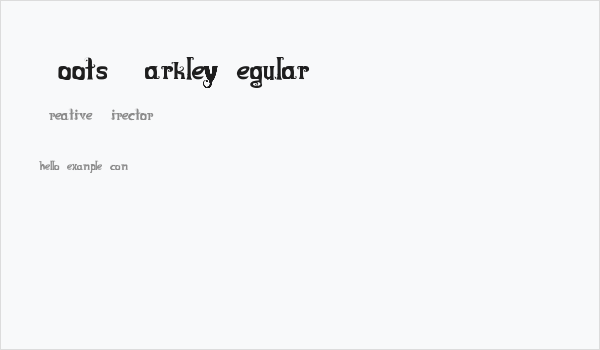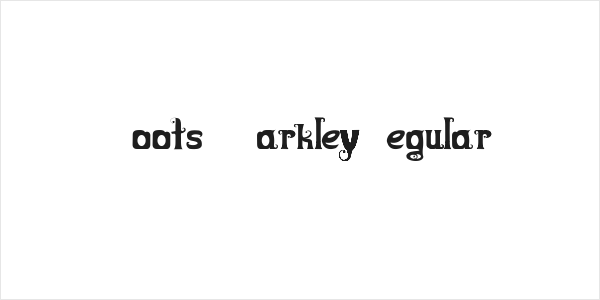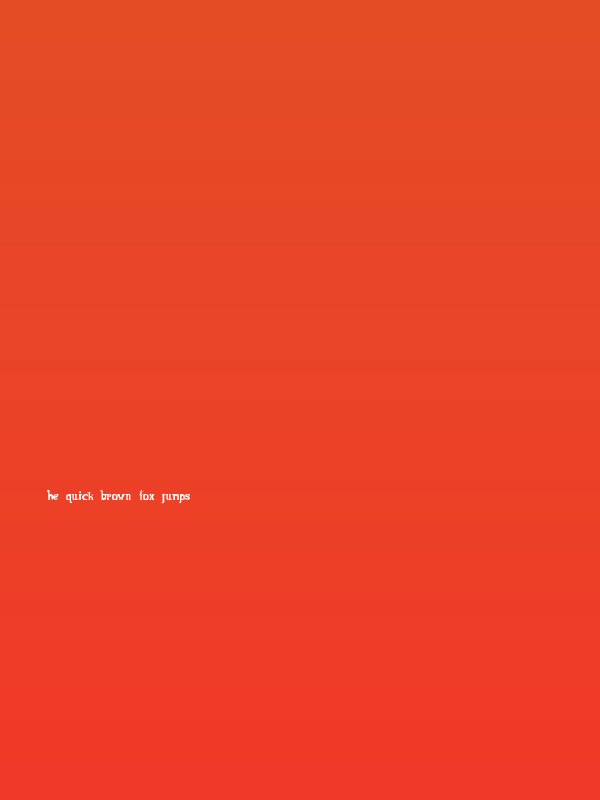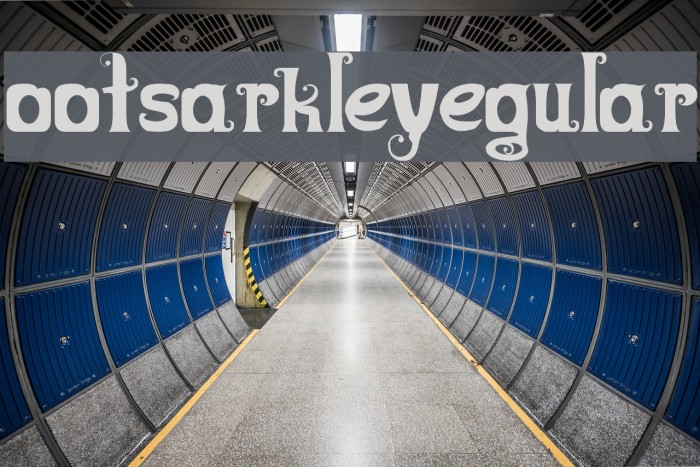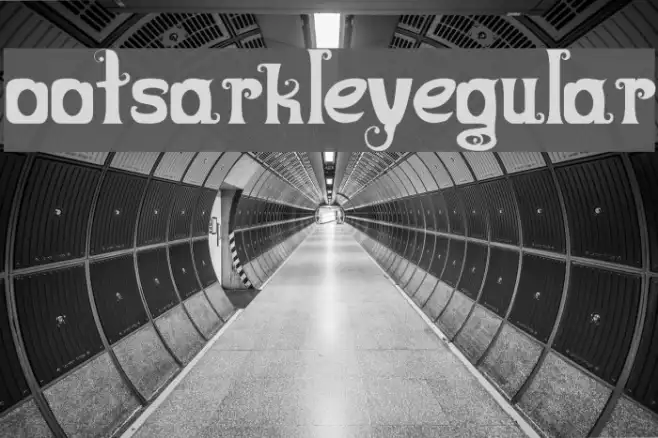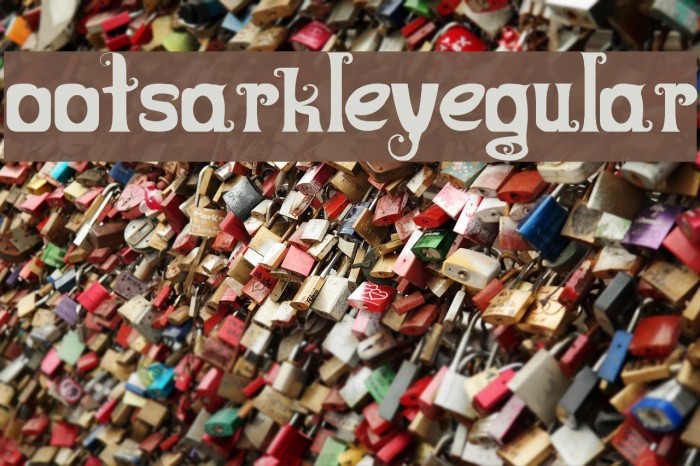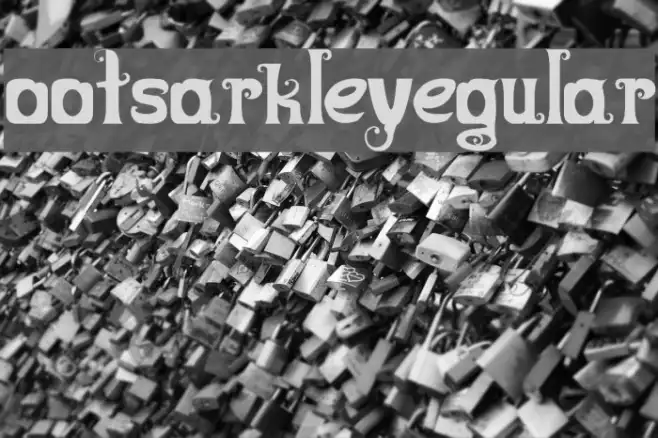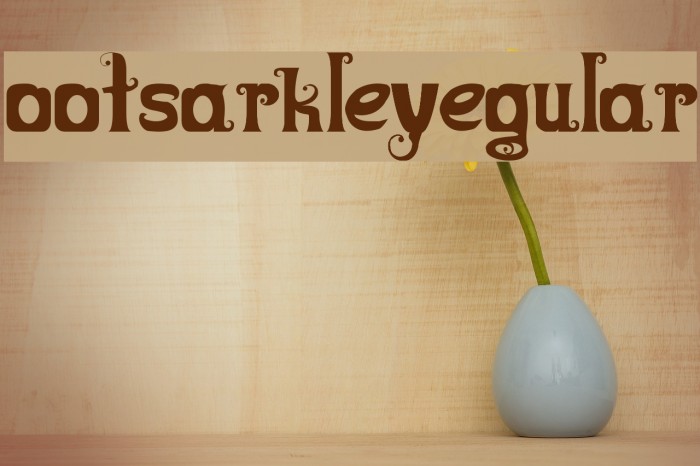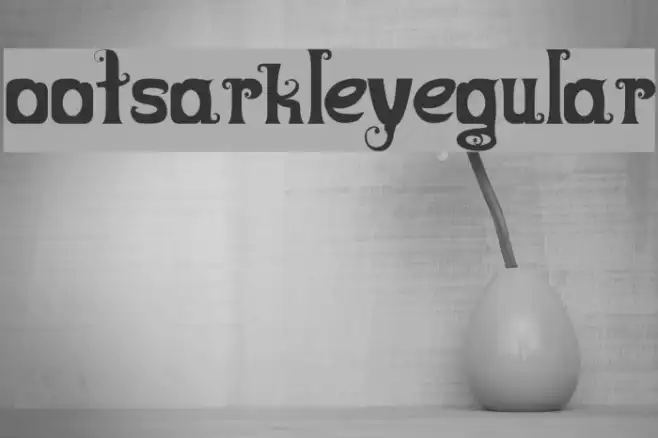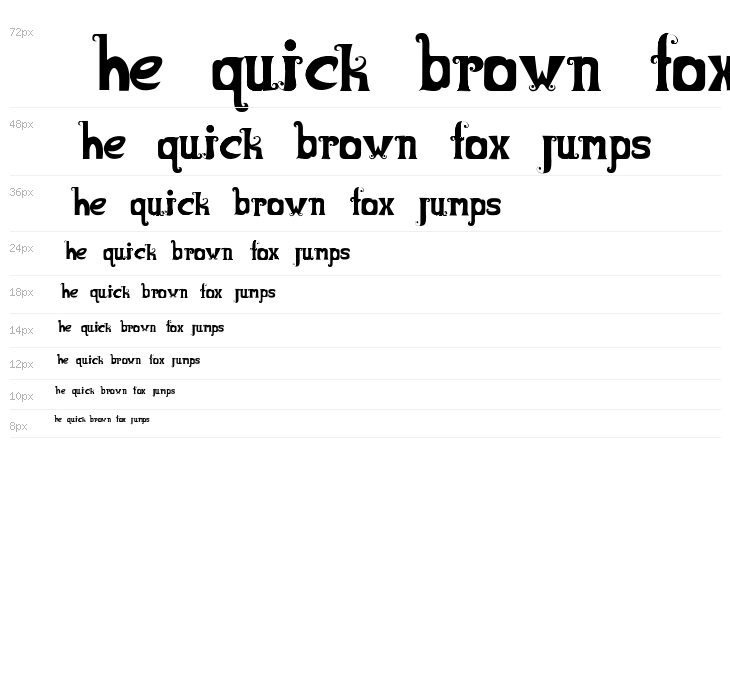
Boots&BarkleyRegular Font
This font features a whimsical and decorative style, characterized by its playful curls and swirls extending from various characters. The letters are bold and have a distinct, artistic flair, making them stand out with their unique embellishments. The overall appearance is both fun and eye-catching, suitable for creative and informal designs. The font maintains a consistent weight throughout, with moderate spacing that allows each character's details to be appreciated without overcrowding.
| Proposed Projects | Ideal for children's book covers, playful branding, party invitations, and creative posters. |